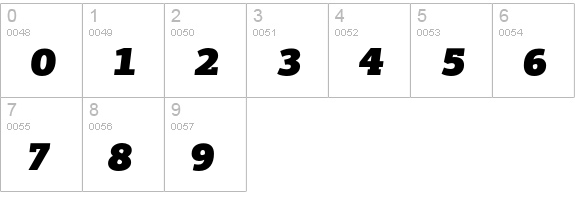
PFCentroSlabPro-UBlackItalic Font Details
PFCentroSlabPro-UBlackItalic is a stunning and bold typeface that exudes elegance and sophistication. Its sleek and modern design makes it perfect for adding a touch of luxury to your design projects. The italic style adds a sense of drama and flair, making it stand out in any layout. What sets PFCentroSlabPro-UBlackItalic apart is that it is available for free download at FontsMarket.com. This means you can easily access this high-quality font without any cost, making it a valuable addition to your font library. Whether you're working on branding, advertising, or any other creative project, PFCentroSlabPro-UBlackItalic is sure to make a bold statement and elevate your designs to the next level.